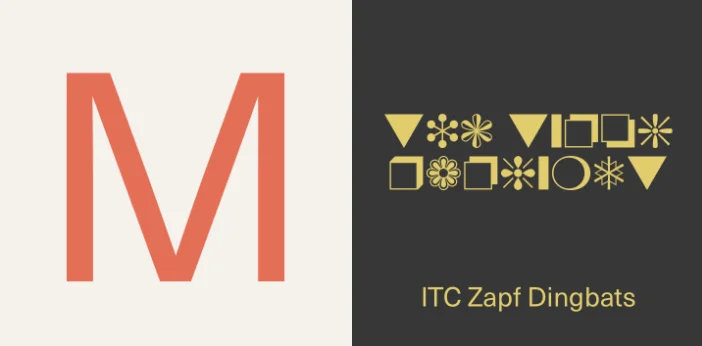
ITC Zapf Dingbats Font is the common dingbat font typeface and Hermann Zapf was designed this in 1978. Zapf Essentials is the advance version to this font which includes 6 symbol font.
ITC Zapf Dingbats is without the doubt one of the extra common dingbat typefaces. It used to be designed through the typographer Hermann Zapf in 1978 and licensed by means of worldwide Typeface corporation.
Design Of ITC Zapf Dingbats Font
In 1977, Zapf created about one thousand (or over 1200 in line with Linotype) sketches of signs and symbols. ITC chose from those a subset of 360 symbols, ornaments and typographic factors headquartered on the usual designs, which grew to become referred to as ITC Zapf Dingbats.
When ITC Zapf Dingbats was once first introduced in U&lc journal, quantity 5-2,[2] the loved ones used to be divided into the hundred sequences (ITC-one hundred), 200 series (ITC-200), 300 series (ITC-300). Each sequence involves one hundred twenty symbols.
It is an OpenType version of the font family, founded on the PostScript variant of the font. The glyphs are mapped to the corresponding Unicode code features. The loved ones consist of 1 font (ITC Zapf Dingbats Medium) with 204 glyphs.